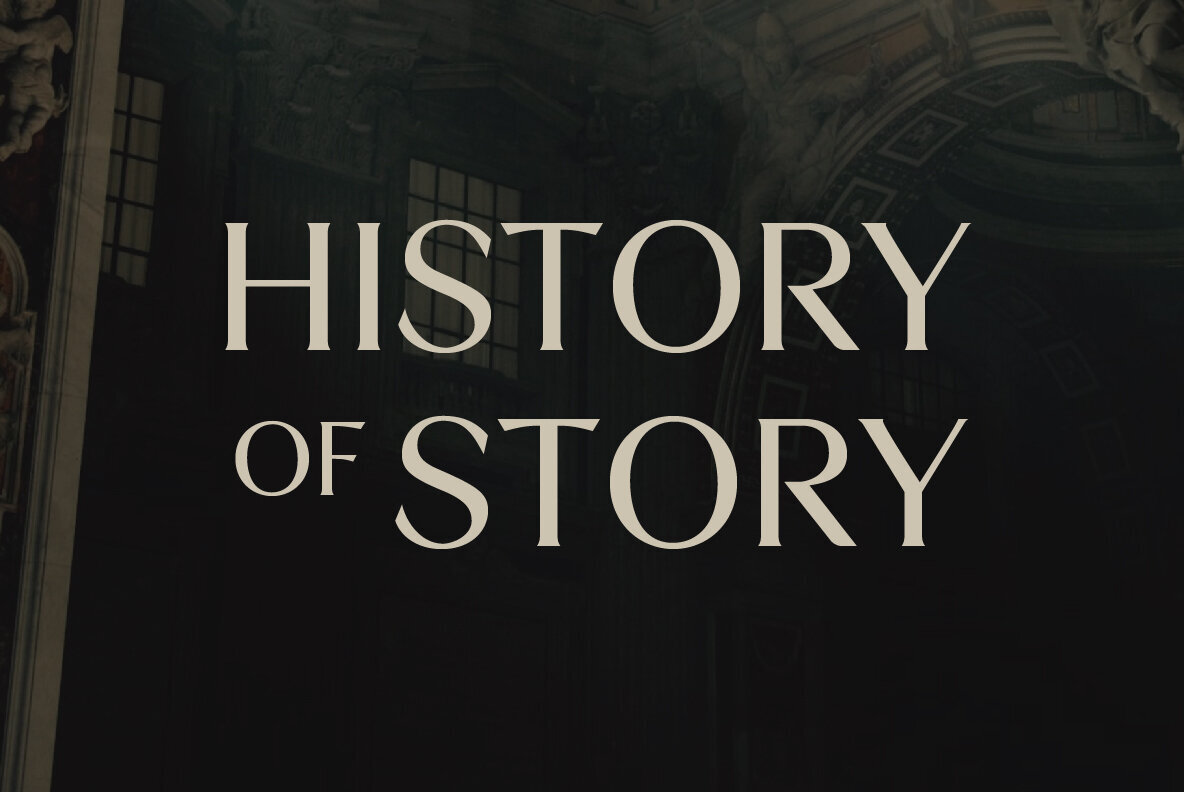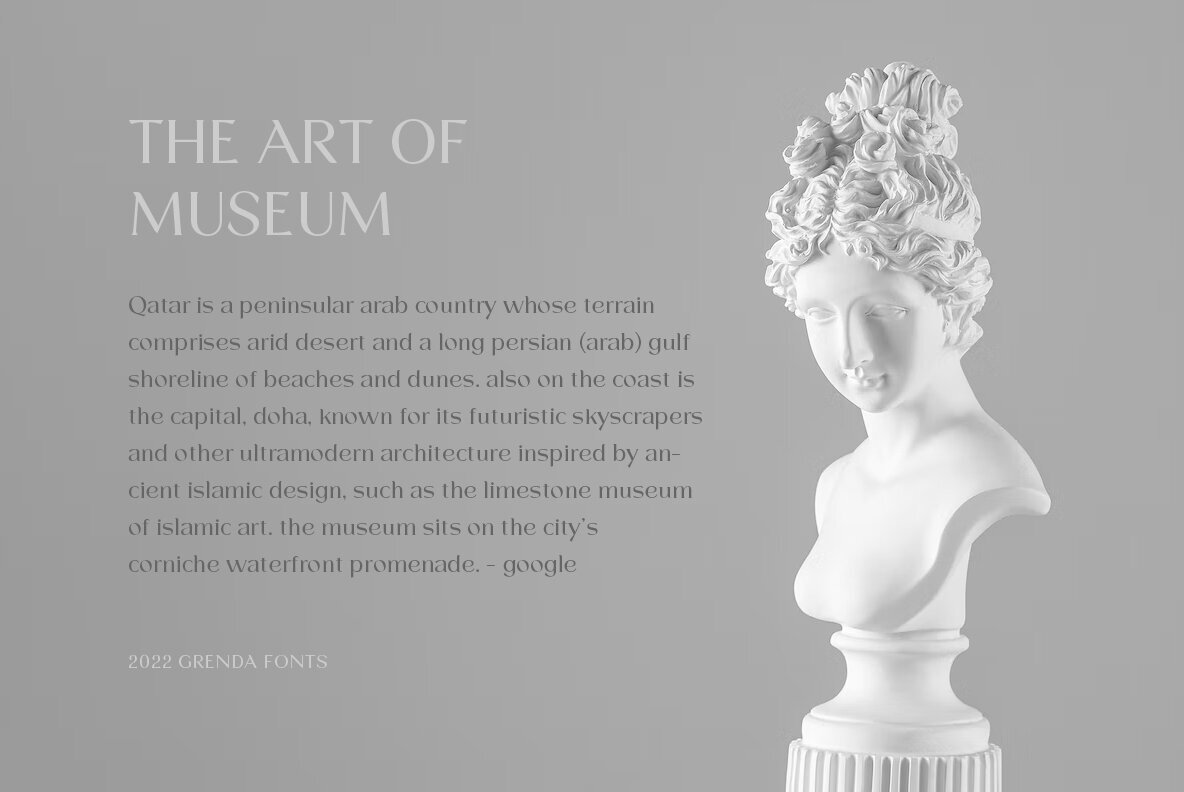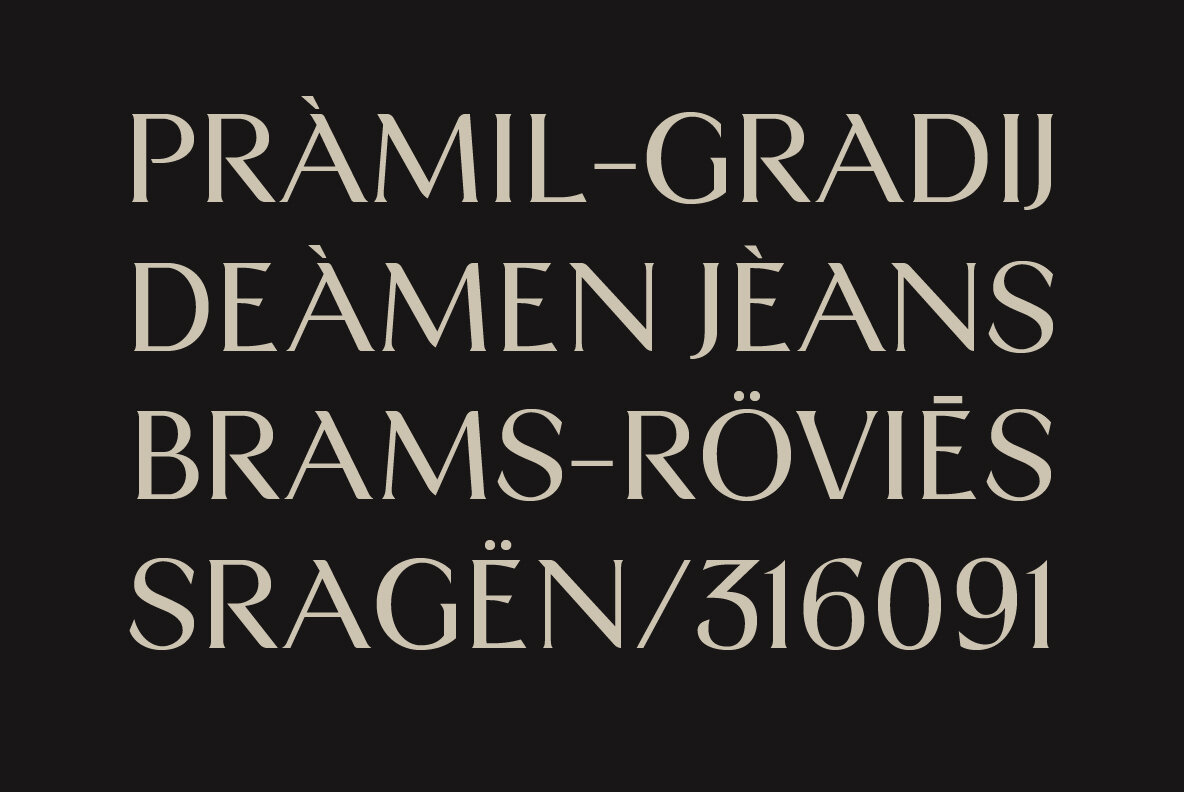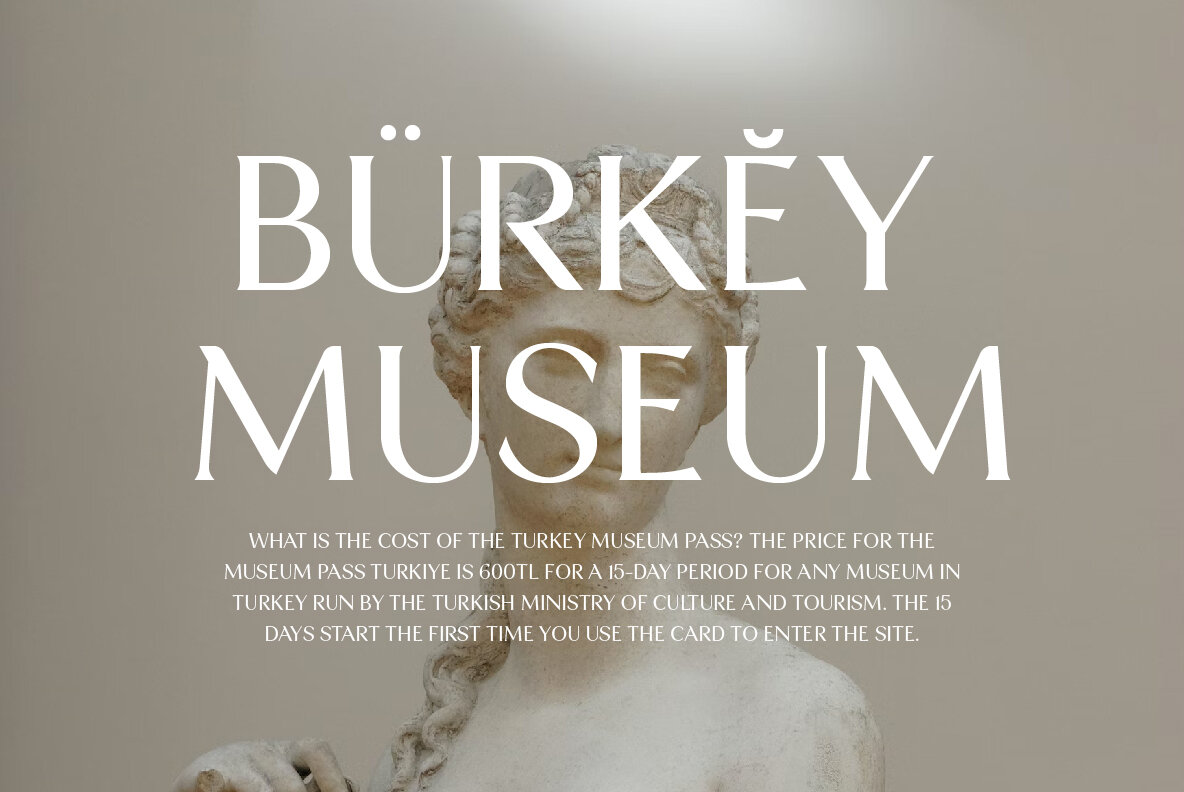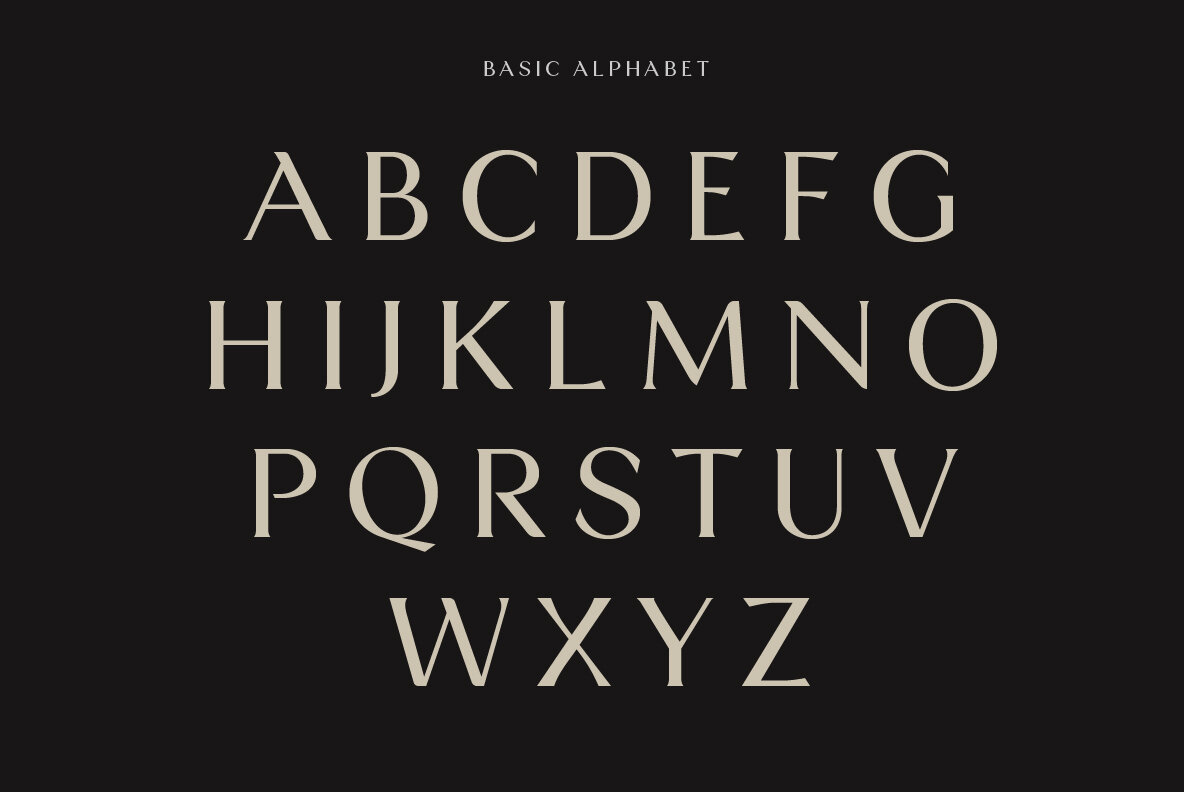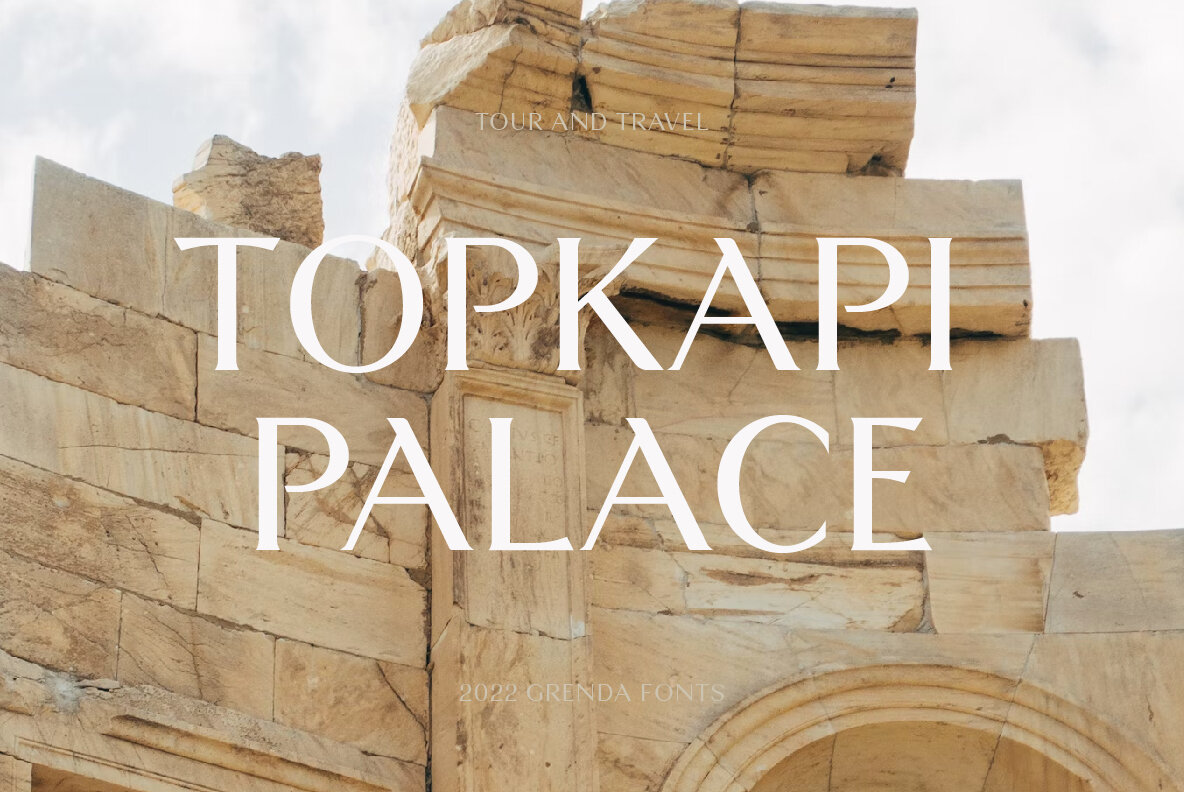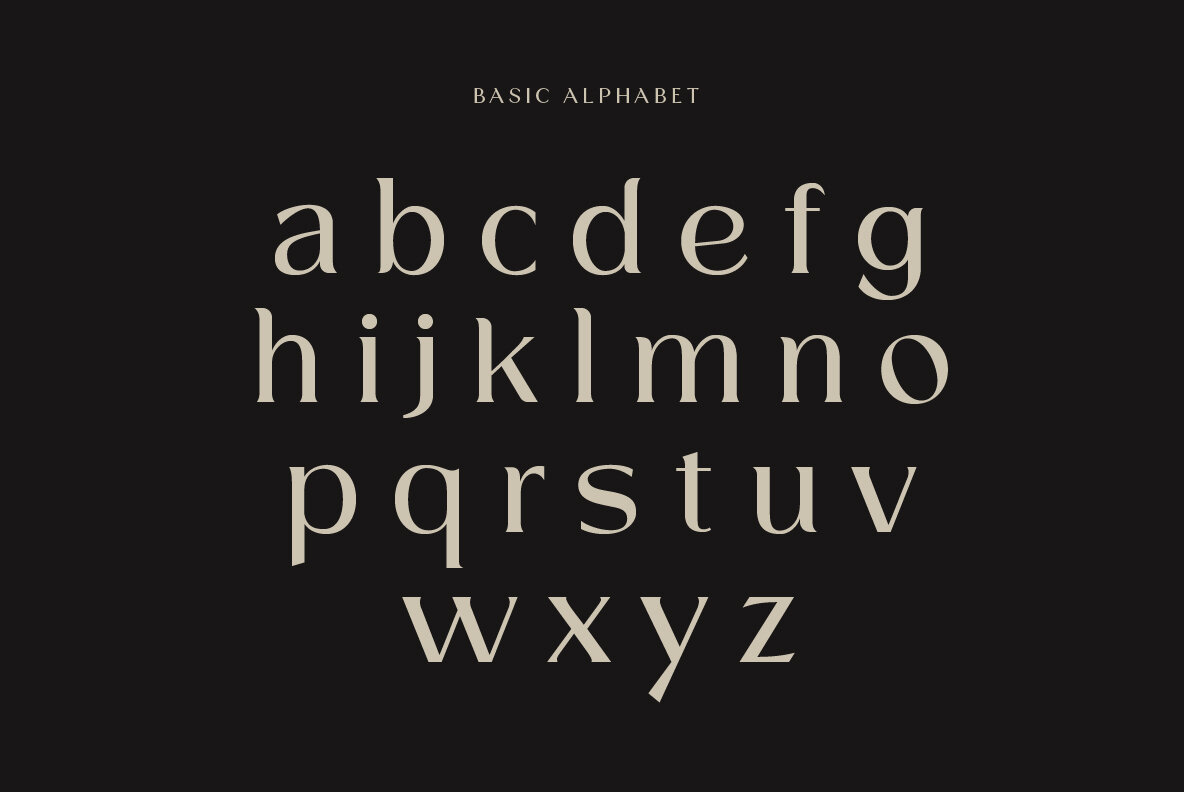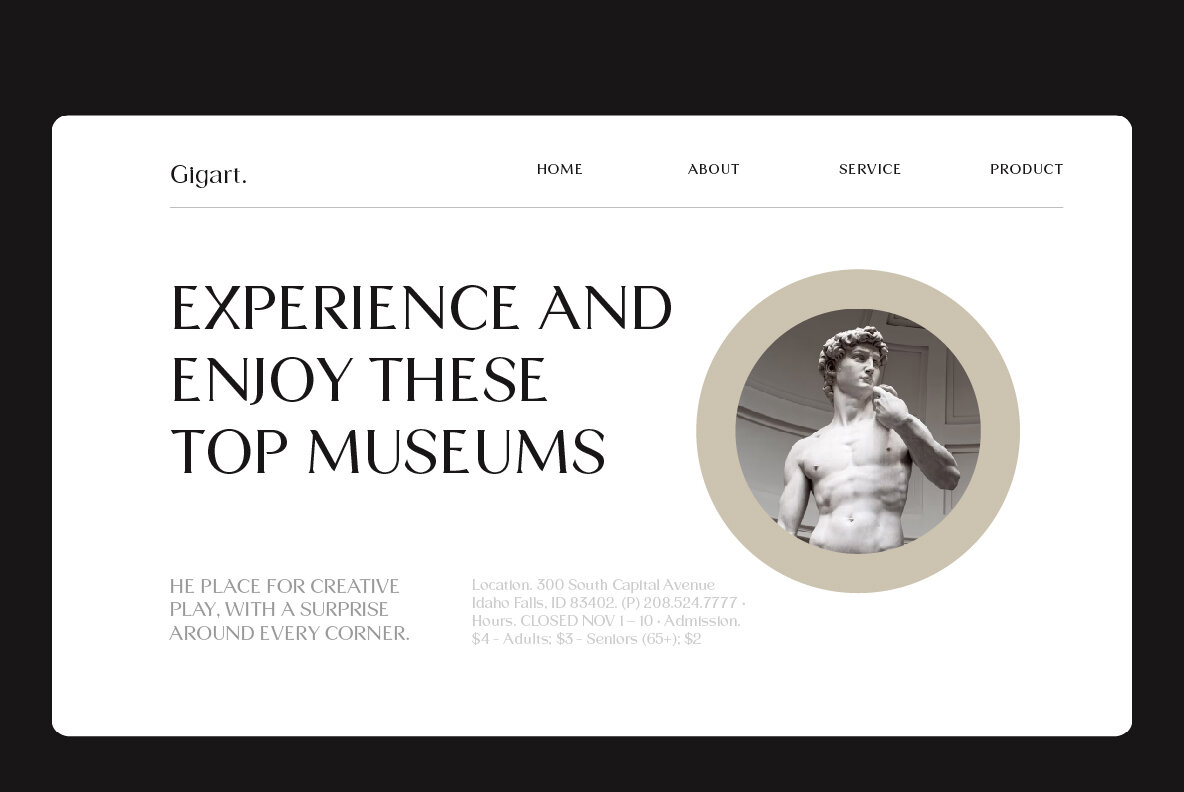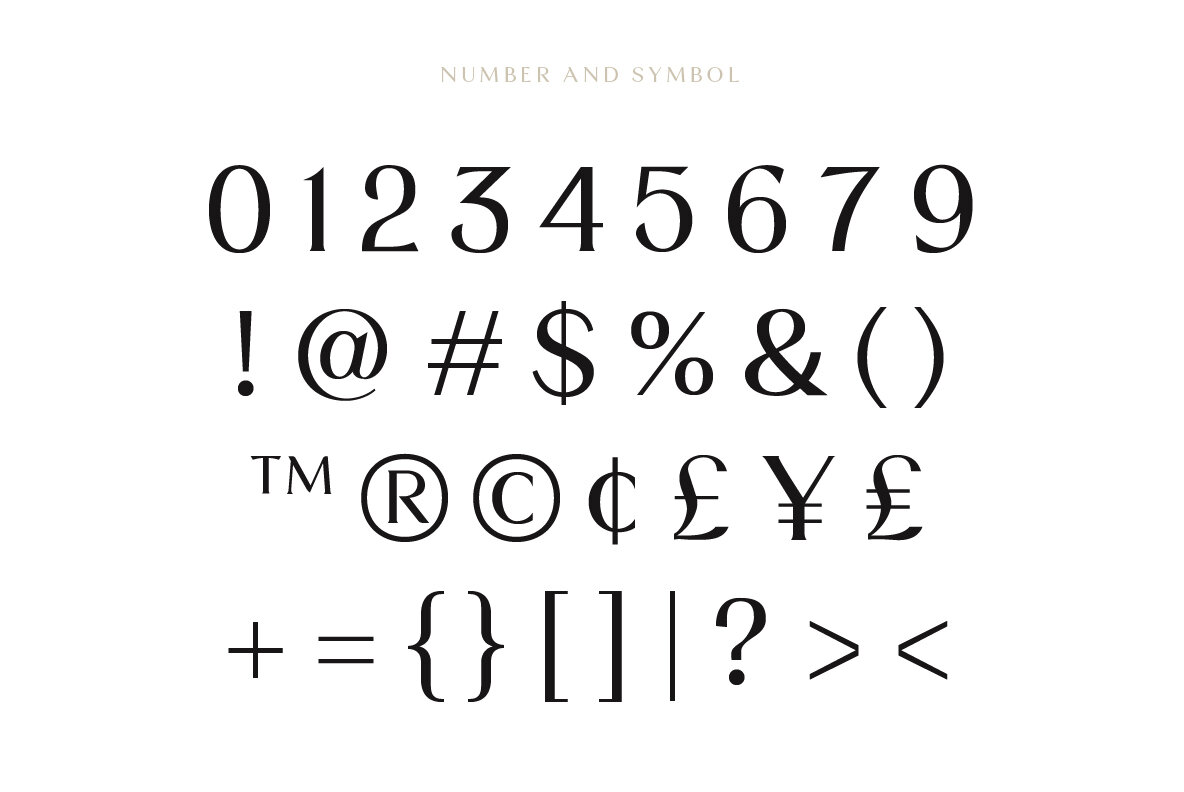
Grenda Font
Grenda Regular
Grenda is the perfect font for anyone who wants to make their design stand out. This serif typeface has an elegant and modern look that will work well in logos, branding materials like headings or advertising posters but also on products such as packaging where you want something more sophisticated.